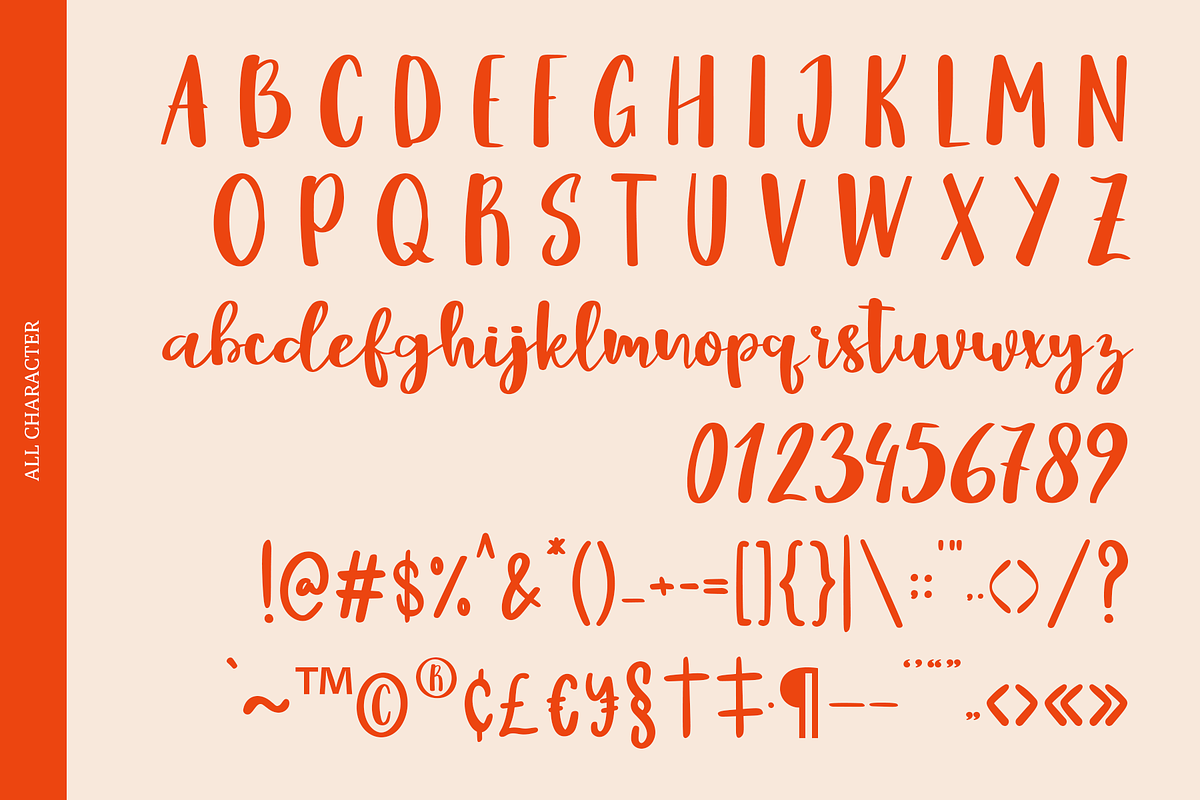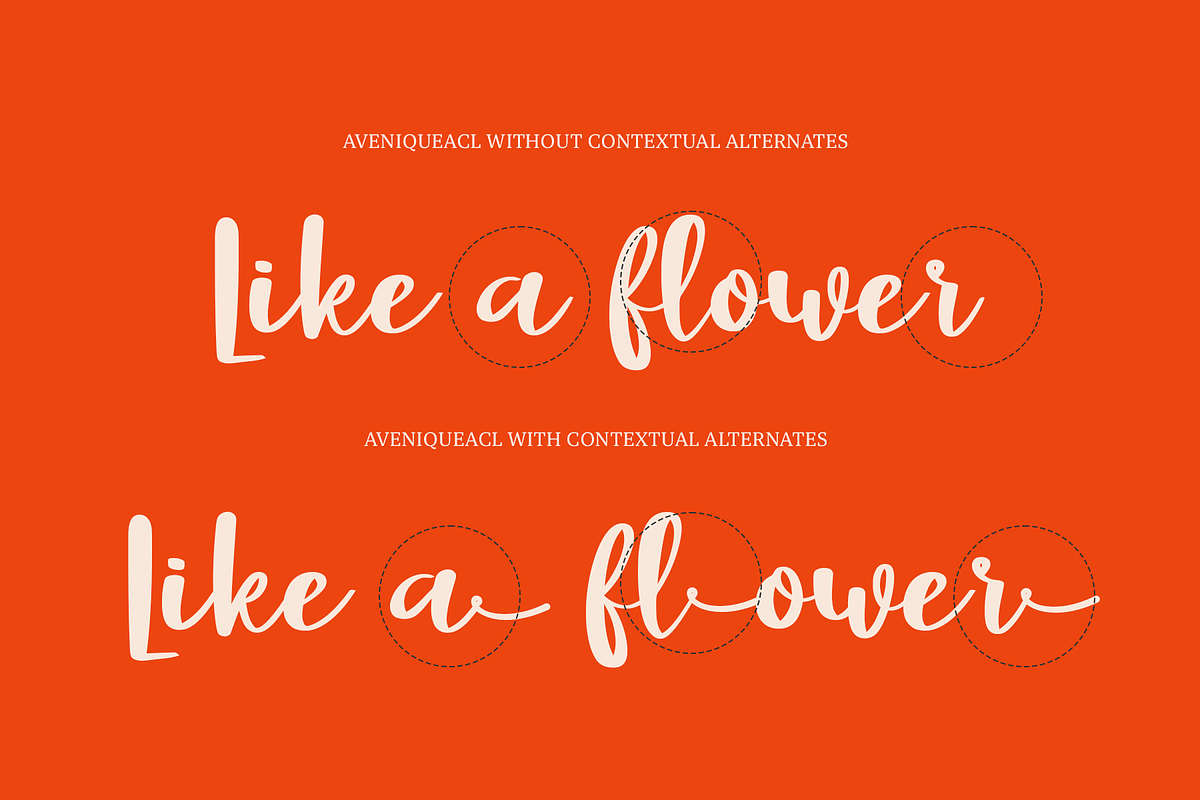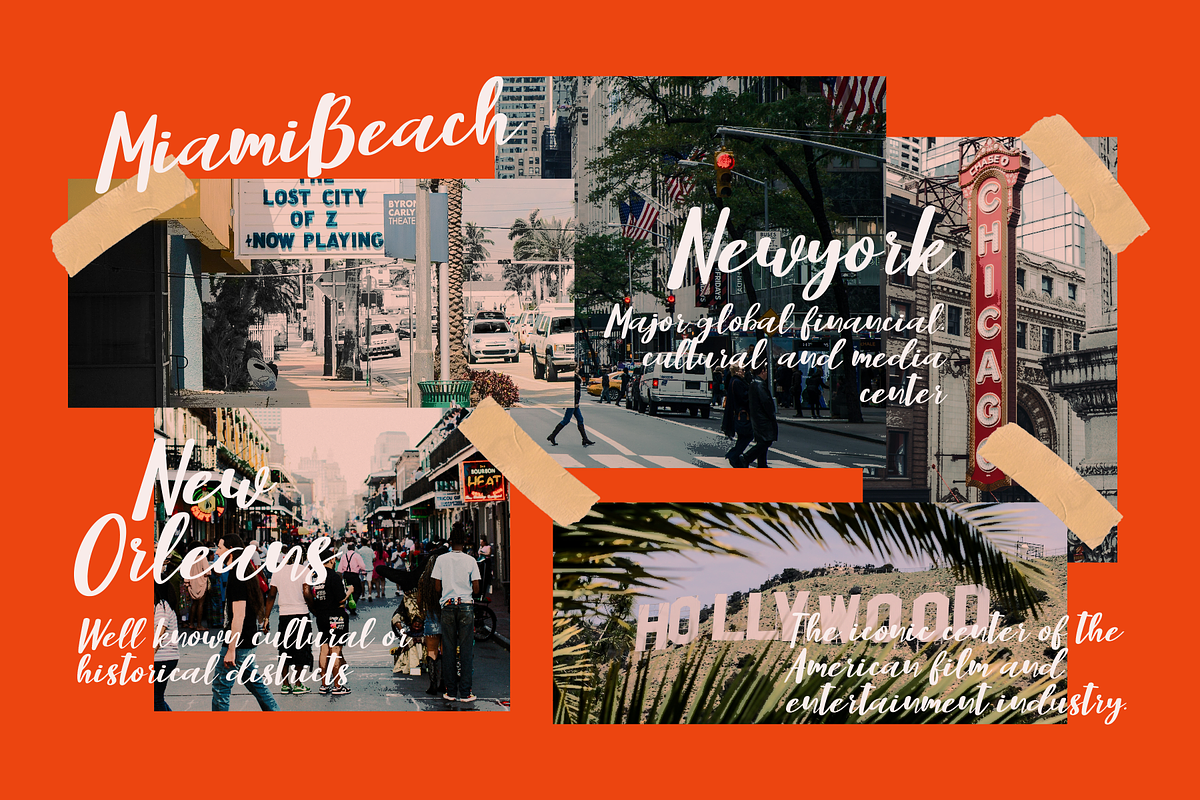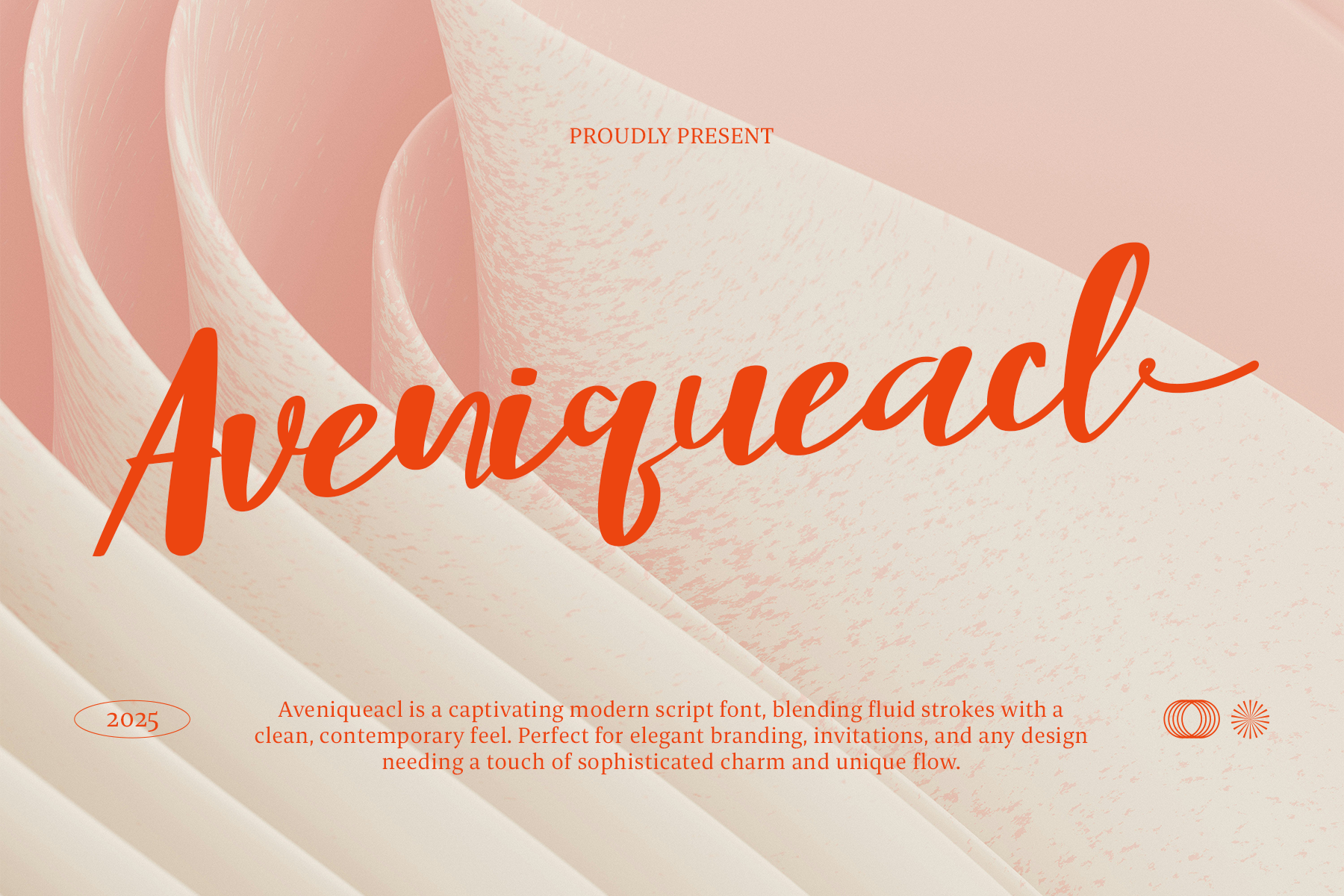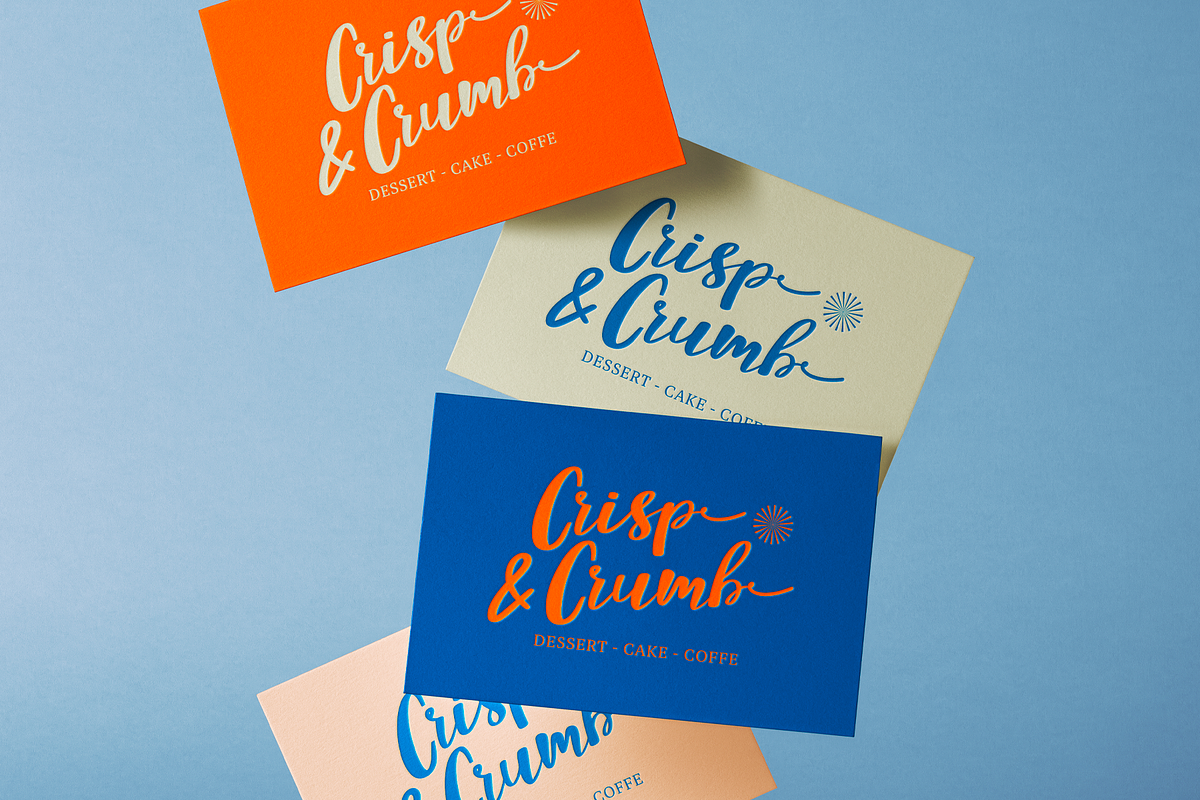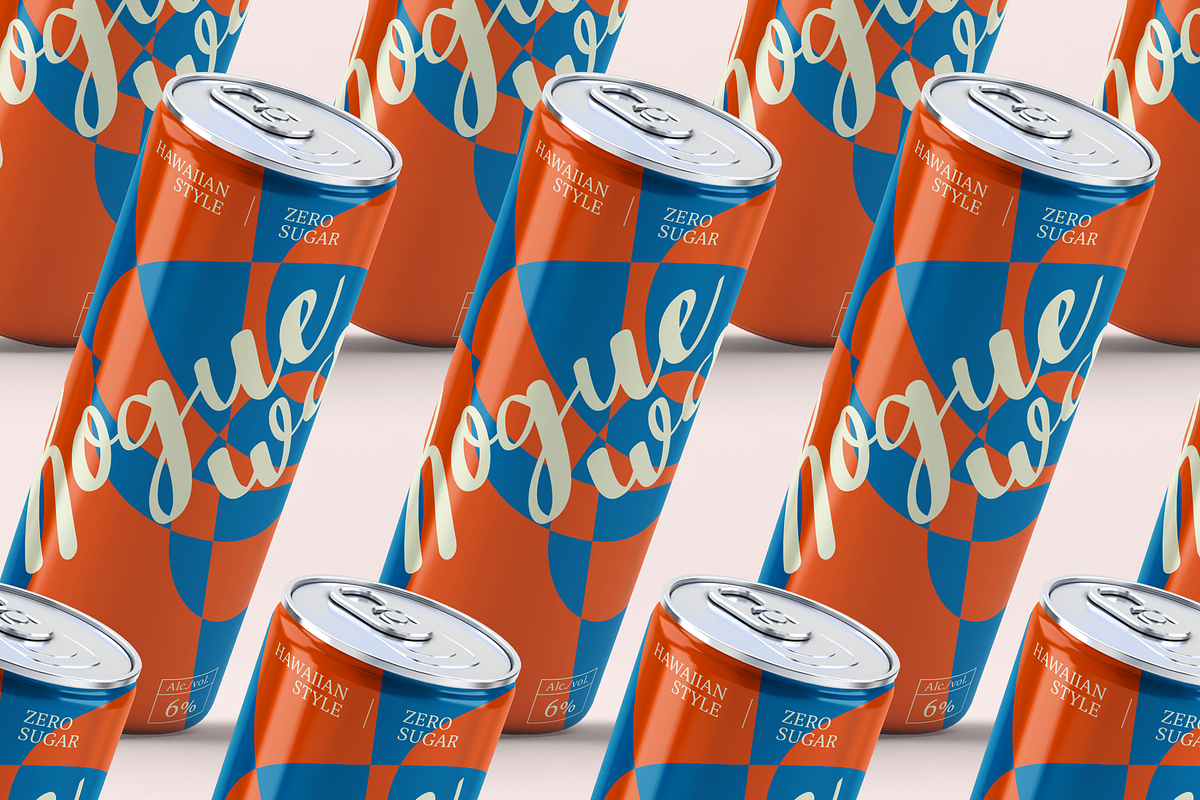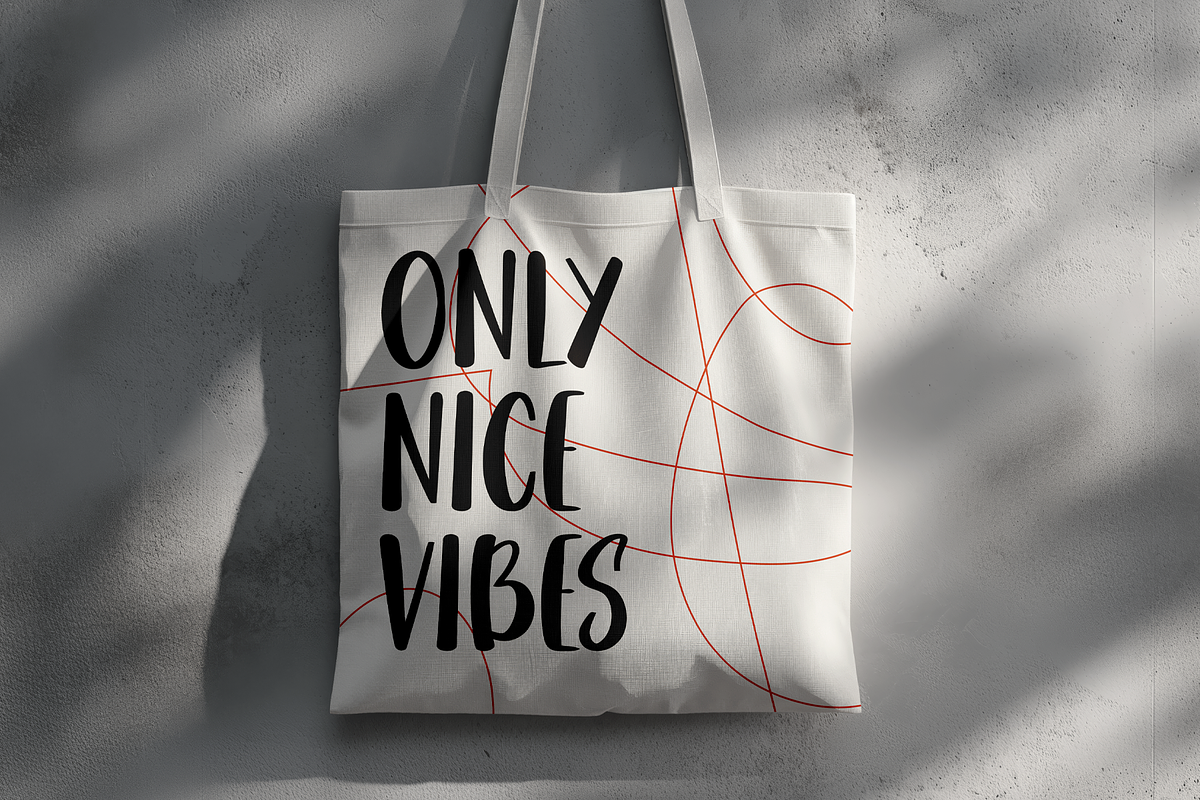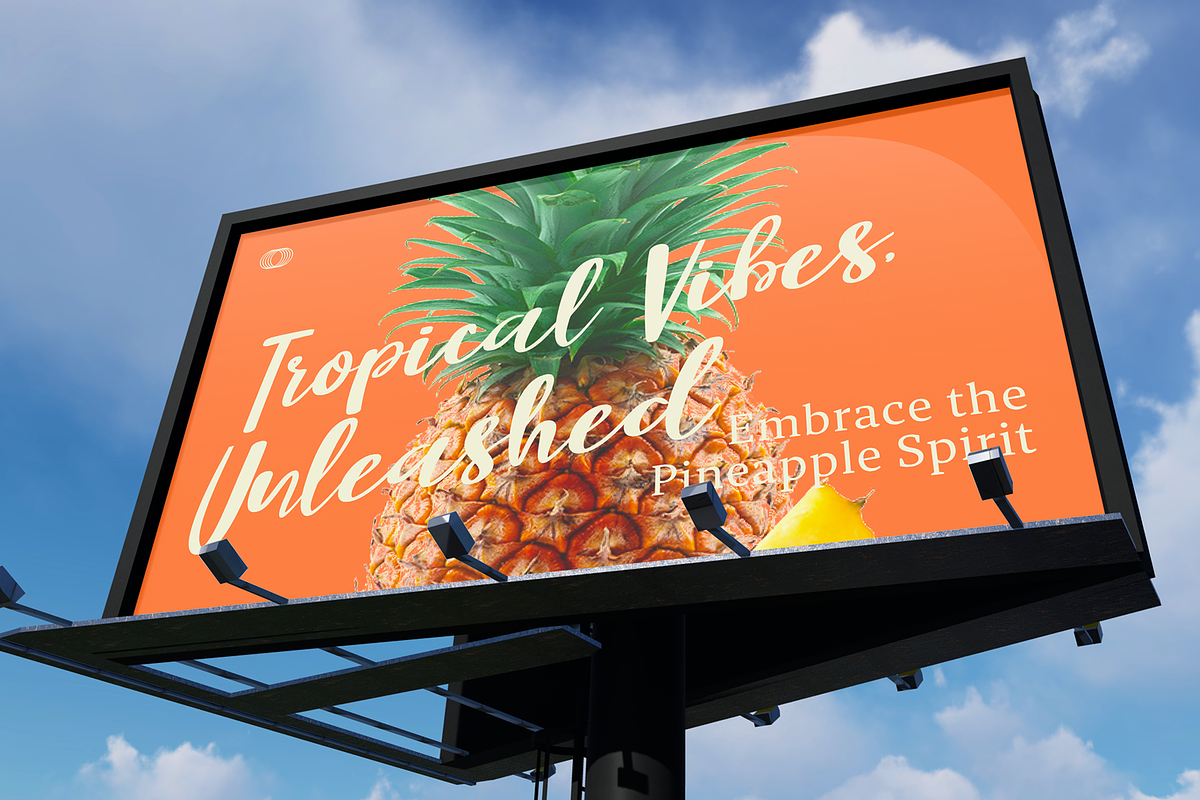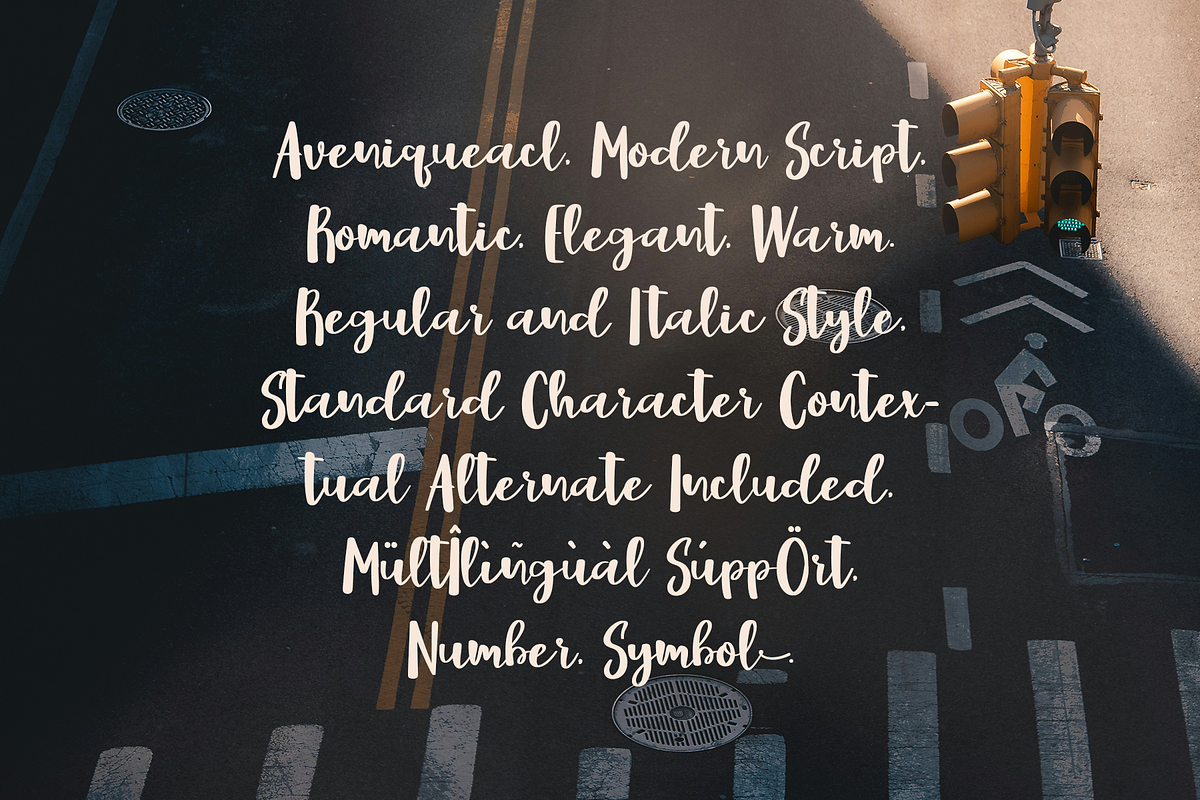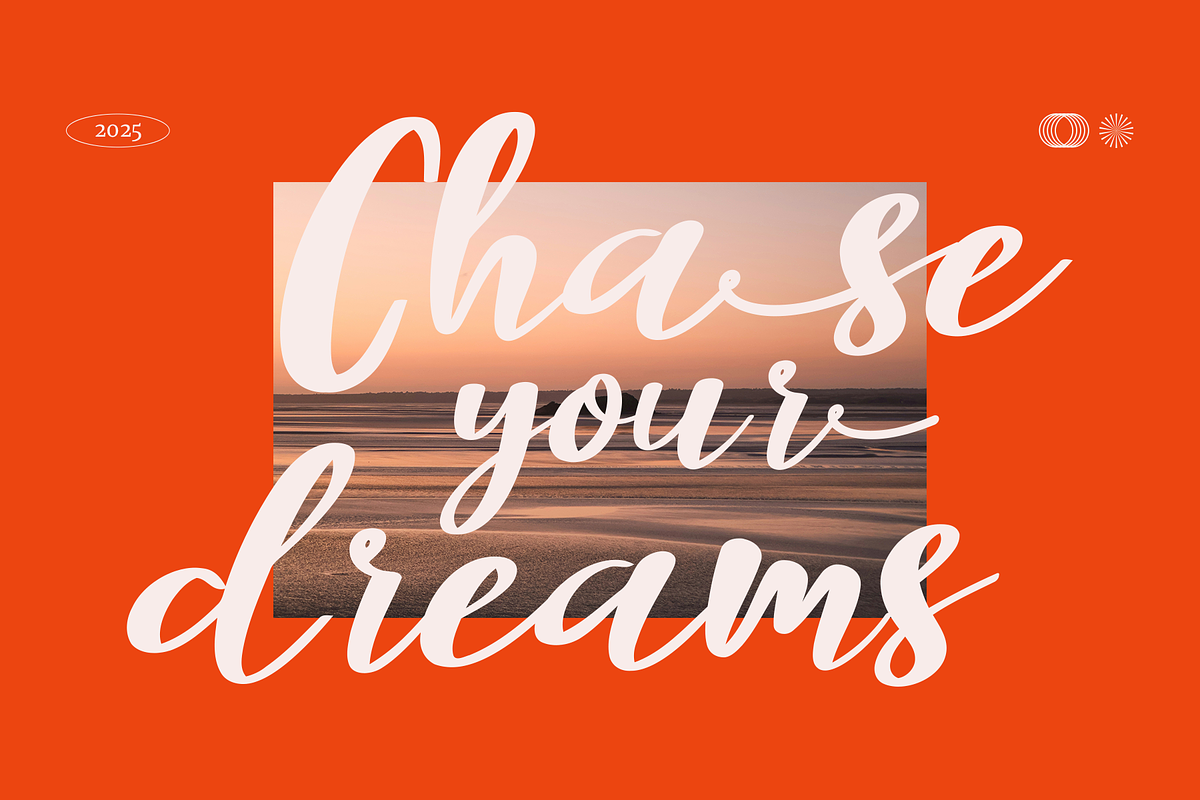
Aveniqueacl - Modern Script Typeface
Aveniqueacl is a graceful and expressive modern script typeface that blends handcrafted elegance with contemporary design versatility. Every curve has been carefully drawn to convey sophistication, while its flowing connections ensure a seamless reading experience that feels both natural and refined.
The letterforms feature balanced proportions, gentle swashes, and smooth transitions, making Aveniqueacl ideal for applications where elegance and personality go hand in hand. Its organic rhythm and stylish flair give it the ability to elevate projects from simple text to striking visual statements.
Perfect for branding projects, wedding stationery, social media graphics, product packaging, or editorial layouts, Aveniqueacl offers timeless beauty for both digital and print design. Its versatility allows it to shine in formal contexts while still retaining a warm and approachable character.
Whether you’re designing a luxury logo, a heartfelt greeting card, or an artistic headline, Aveniqueacl brings a refined, modern charm that resonates with elegance in every curve. Available in standard OTF and TTF formats for full creative compatibility.
- Standard Character A-Z, a-z, 0-9, Punctuation & symbols
- Regular & Italic